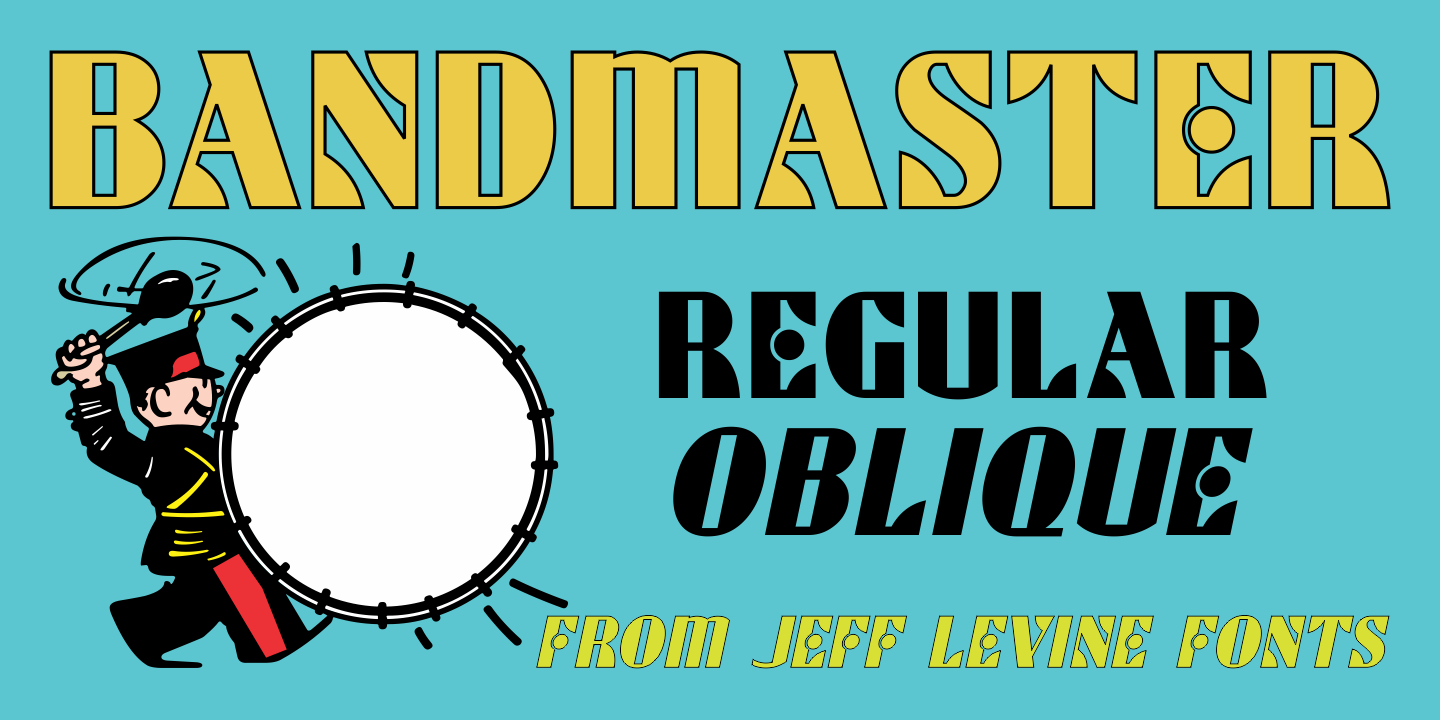
The Bandmaster JNL Font Free Download is ideal for movie posters, event flyers, retro signage, and nostalgic branding, offering a bold, vintage aesthetic.
This font is exciting because its hand-lettered, sans-serif design, inspired by the 1940 musical comedy “Strike Up the Band,” captures the vibrant energy of classic Hollywood.
The Bandmaster JNL family includes Regular and Oblique styles, providing versatile options for dynamic typography.
Step into the golden age of cinema with the Bandmaster JNL Font Free Download, a display typeface designed by Jeff Levine and published by Jeff Levine Fonts. Inspired by the opening titles of the 1940 musical comedy “Strike Up the Band” starring Judy Garland and Mickey Rooney, Bandmaster JNL features bold, hand-lettered sans-serif letterforms perfect for creating eye-catching headlines or retro logos. Available in OTF, TTF, and WOFF formats, it ensures crisp rendering across print and digital platforms. As 2025 design trends favor nostalgic, bold typography, downloading Bandmaster JNL Font Free Download keeps your work vibrant and timeless. Test it today at fontspring.com for personal use, and consider purchasing a commercial license at myfonts.com for full use.